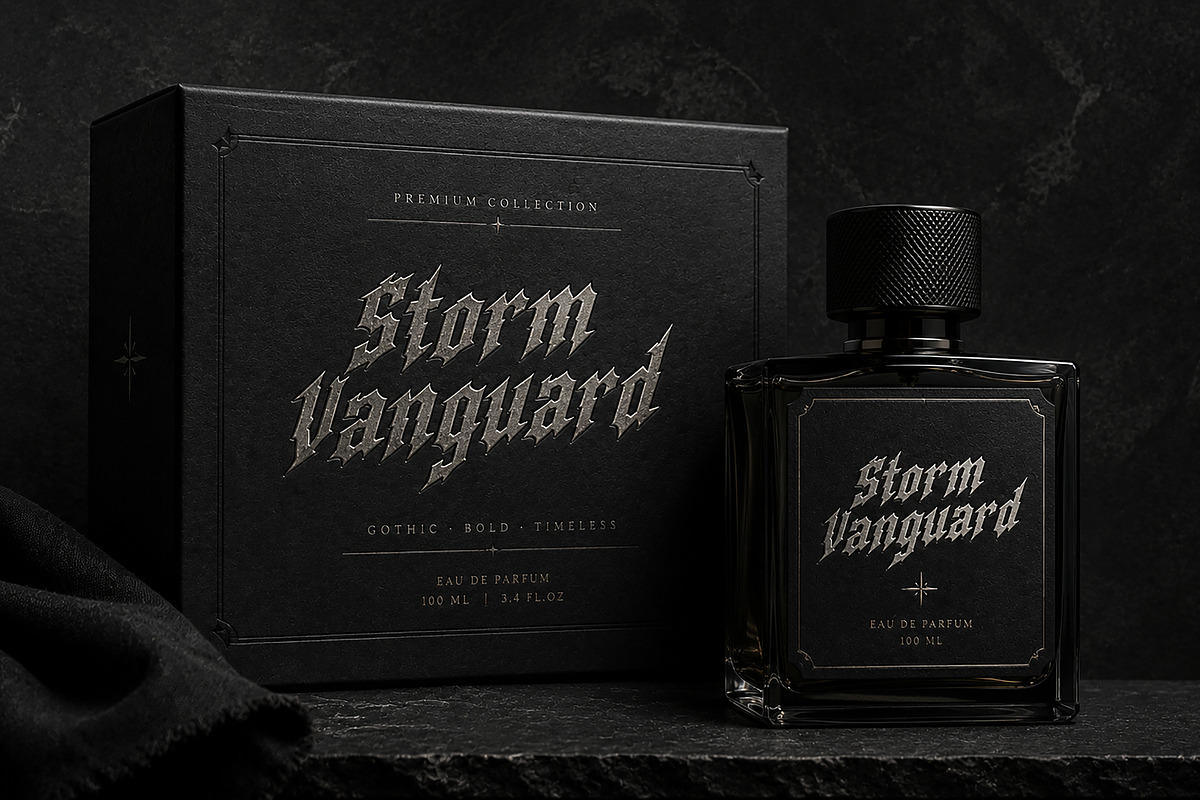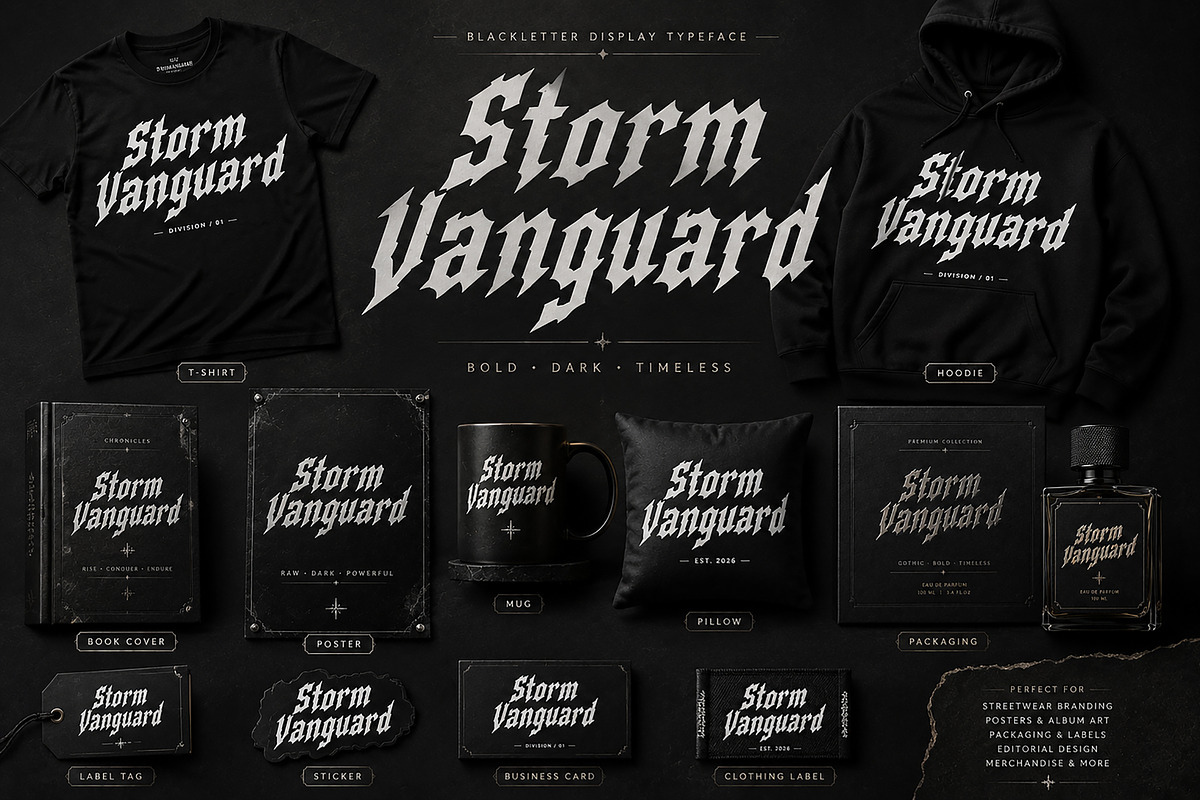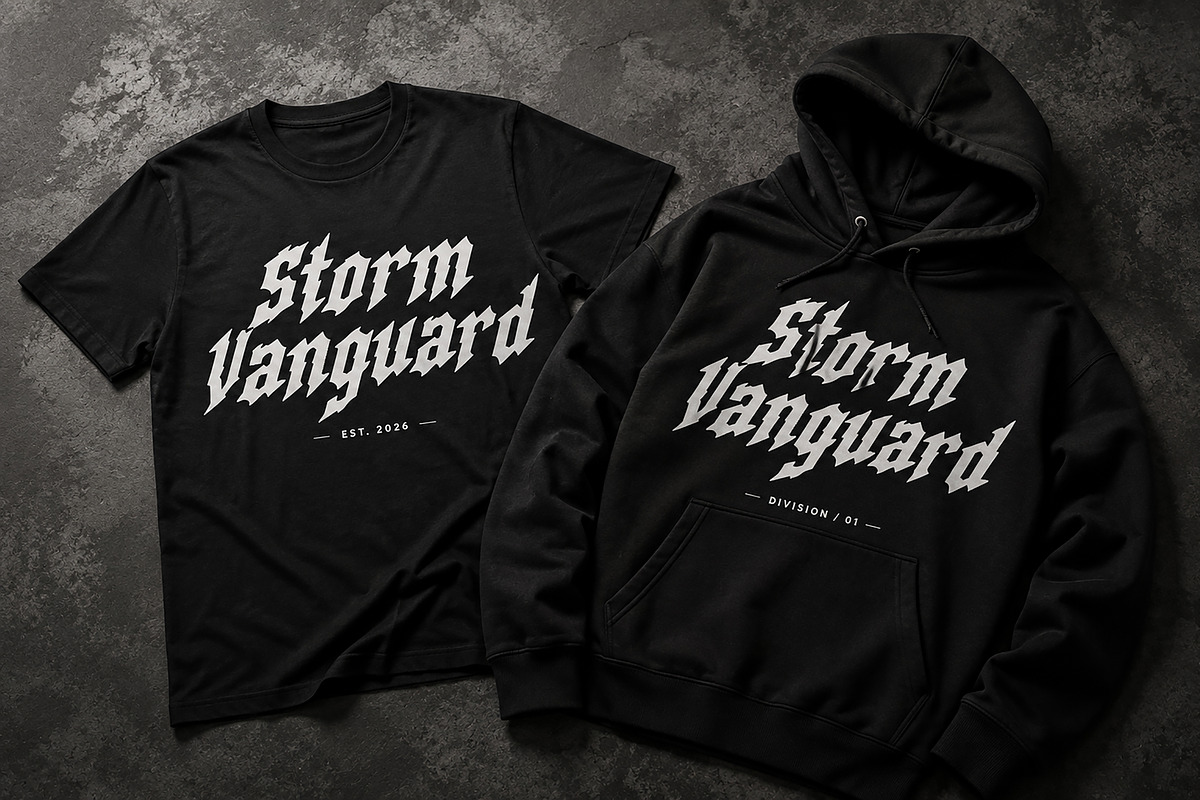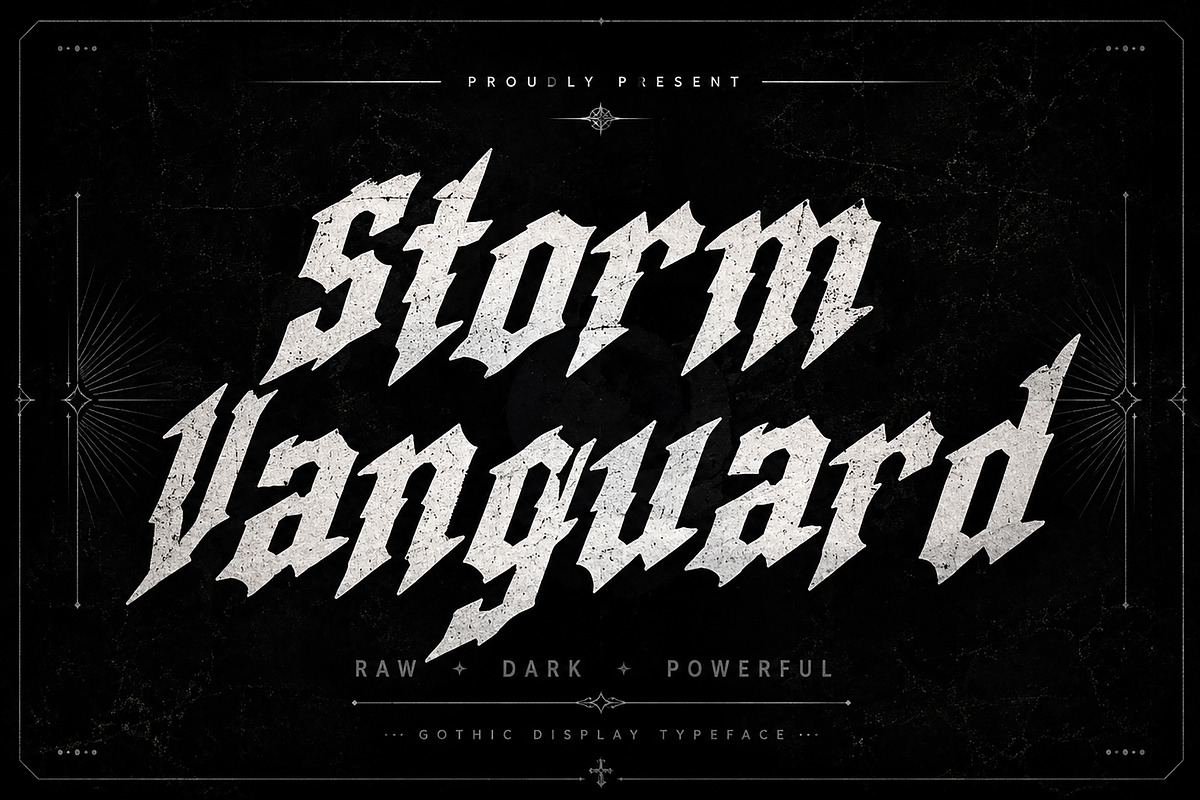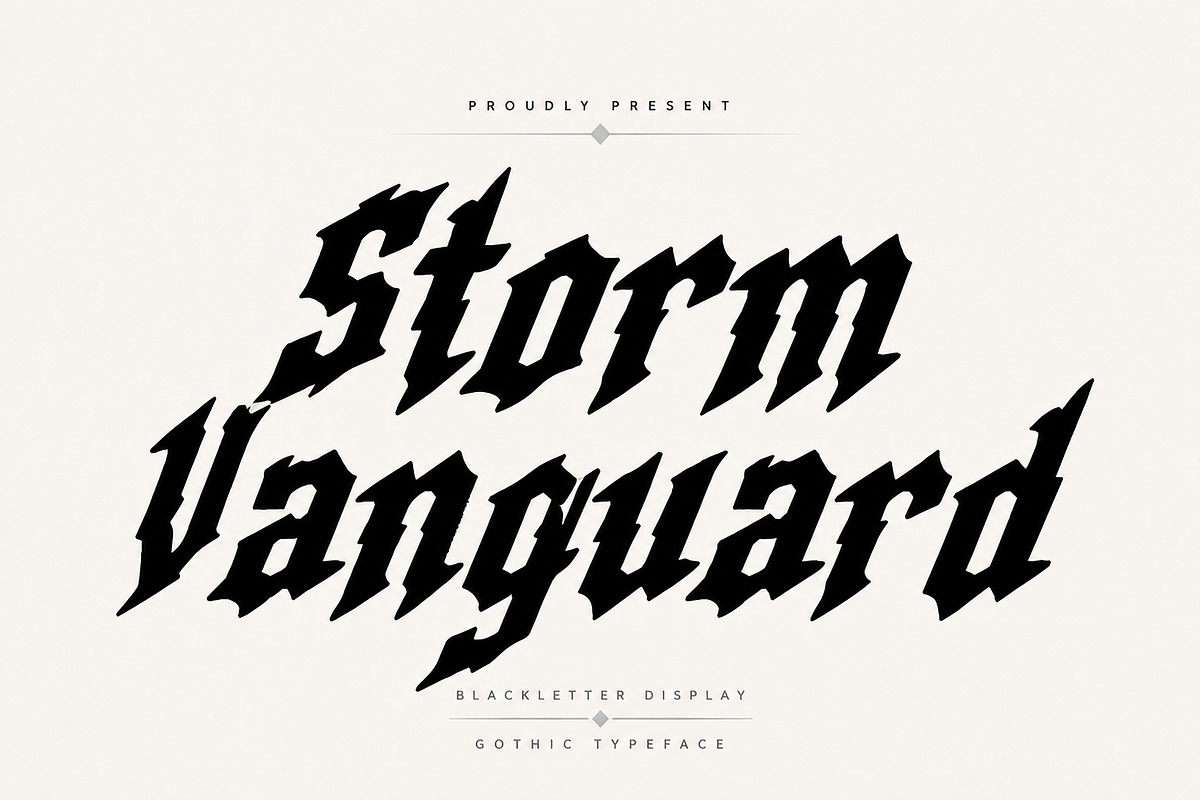
Storm Vanguard
Storm Vanguard is a bold and aggressive Blackletter Gothic display font designed to bring a powerful, dark, and rebellious character to your designs. Its sharp angular forms and dramatic letter shapes make it perfect for projects that need a strong medieval, metal, streetwear, or alternative aesthetic.
With its distinctive blackletter appearance, Storm Vanguard works especially well for eye-catching headlines, logos, apparel graphics, posters, album artwork, branding, packaging, labels, book covers, merchandise, and other high-impact design projects.
Whether you're creating a dark fashion identity, gothic branding, rock-inspired artwork, or striking promotional graphics, Storm Vanguard is designed to make your typography stand out.
Gothic & Blackletter Branding
Logo & Identity Design
T-Shirt & Hoodie Designs
Streetwear Graphics
Rock & Metal Posters
Album & Music Artwork
Packaging & Product Labels
Stickers & Merchandise
Editorial & Poster Design
Vintage & Medieval-Inspired Projects
Badges, Titles & Headlines
Style: Blackletter / Gothic Display
Storm Vanguard — Sharp. Dark. Powerful.